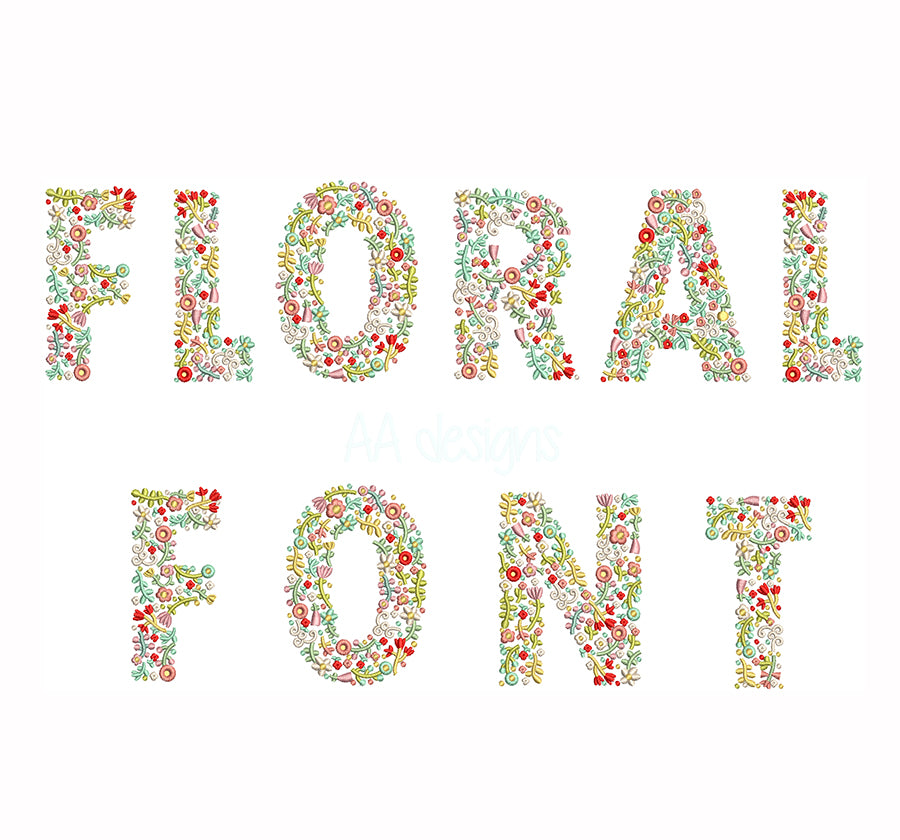
Floral embroidery digital font. Embroidery alphabet with flowers. Floral embroidery letters. BX format
Floral embroidery digital font.
This font comes with letters in 3 sizes, A-Z (Upper case)